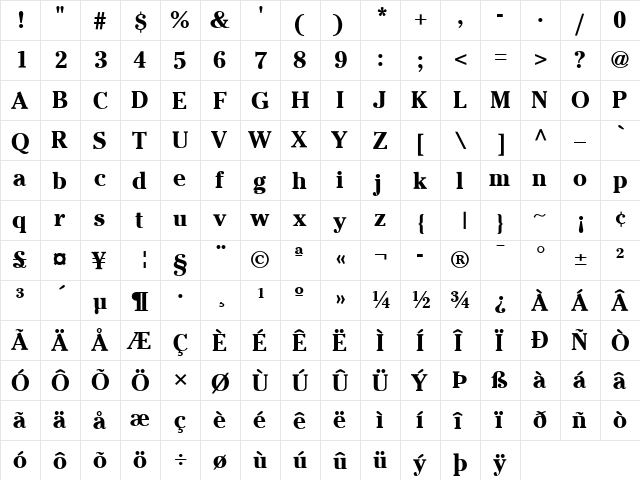
Cheltenham LT Bold
Design Context for Cheltenham LT Typeface
Cheltenham LT is a composed and adaptable typeface that performs quietly and consistently across a wide range of design contexts. Its bold stroke weight gives it real presence on the page.